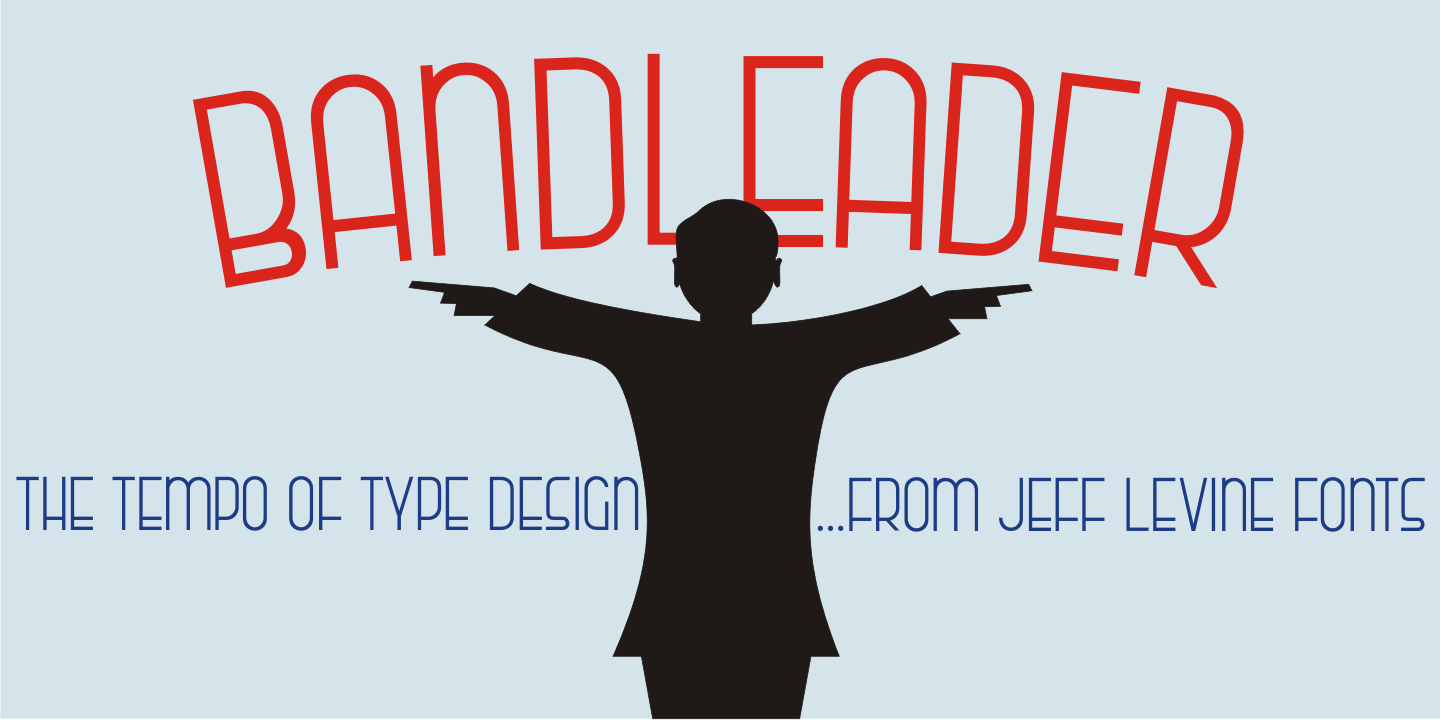
Bandleader
How does one arrive at a font name? With the thousands of digital typefaces available, it's not an easy process.
Bandleader JNL was modeled from the hand-lettered title on a piece of sheet music called 'Largo”, which means 'slow tempo'. Since the names 'Largo' and 'Tempo' were already taken, what other musical theme would fit?
The lettering is in an Art Deco style, and Big Band was all the rage of the Art Deco period; therefore 'Bandleader”. Sometimes the road to naming a font takes on many twists and turns but the end result is always gratifying.